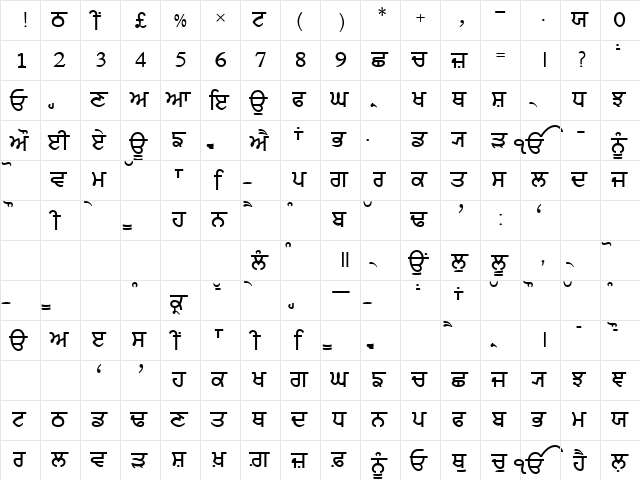
NEWP Normal Font Preview
NEWP Normal
NEWP Normal Font Details
Design Context for NEWP Typeface
NEWP is a composed and adaptable typeface that performs quietly and consistently across a wide range of design contexts.